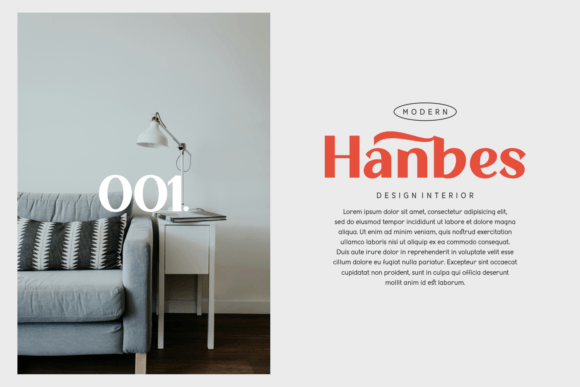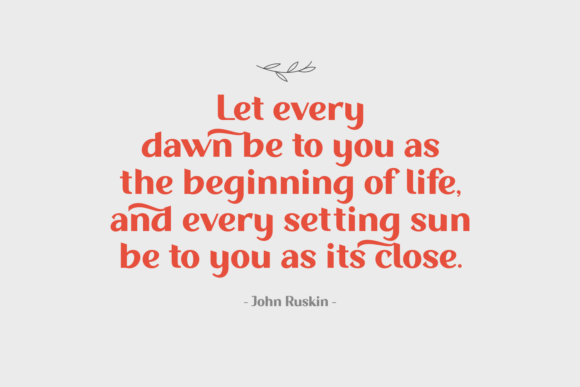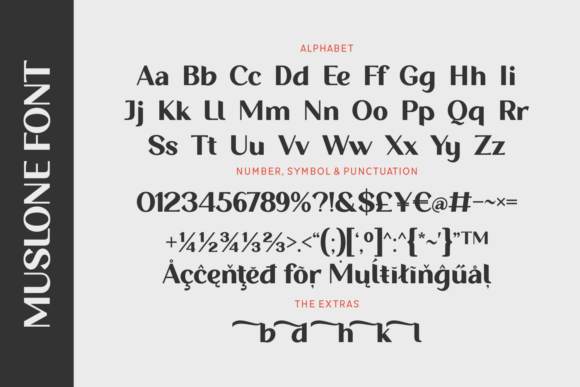
Introduction to Muslone Font
Muslone is a clean, sans serif font with a modern feel and a touch of style.
It has simple, easy-to-read letters with subtle, unique details that make it stand out without being too fancy Perfect for headlines, logos, or any text where you want a fresh, stylish look.
Key Features of Muslone Font
Why Choose Muslone Font?